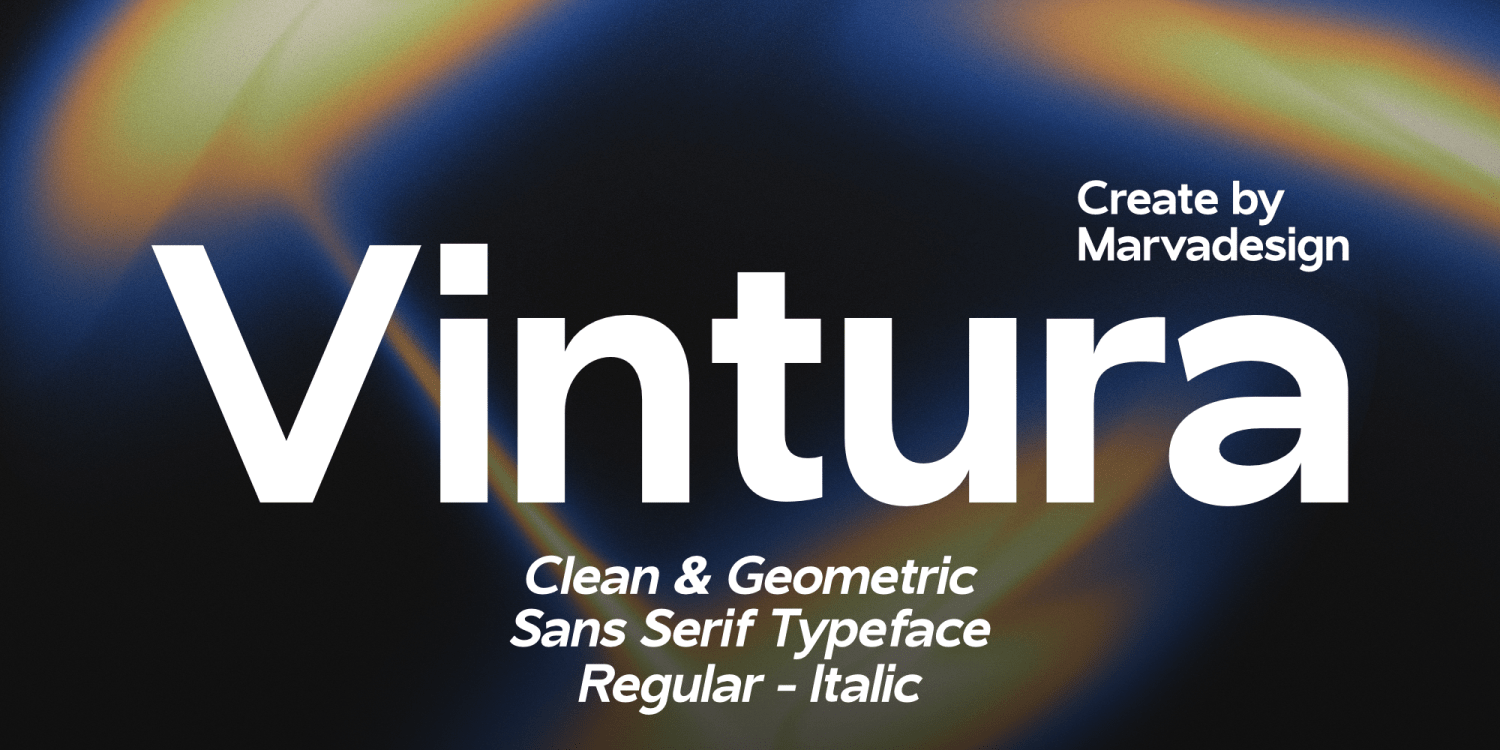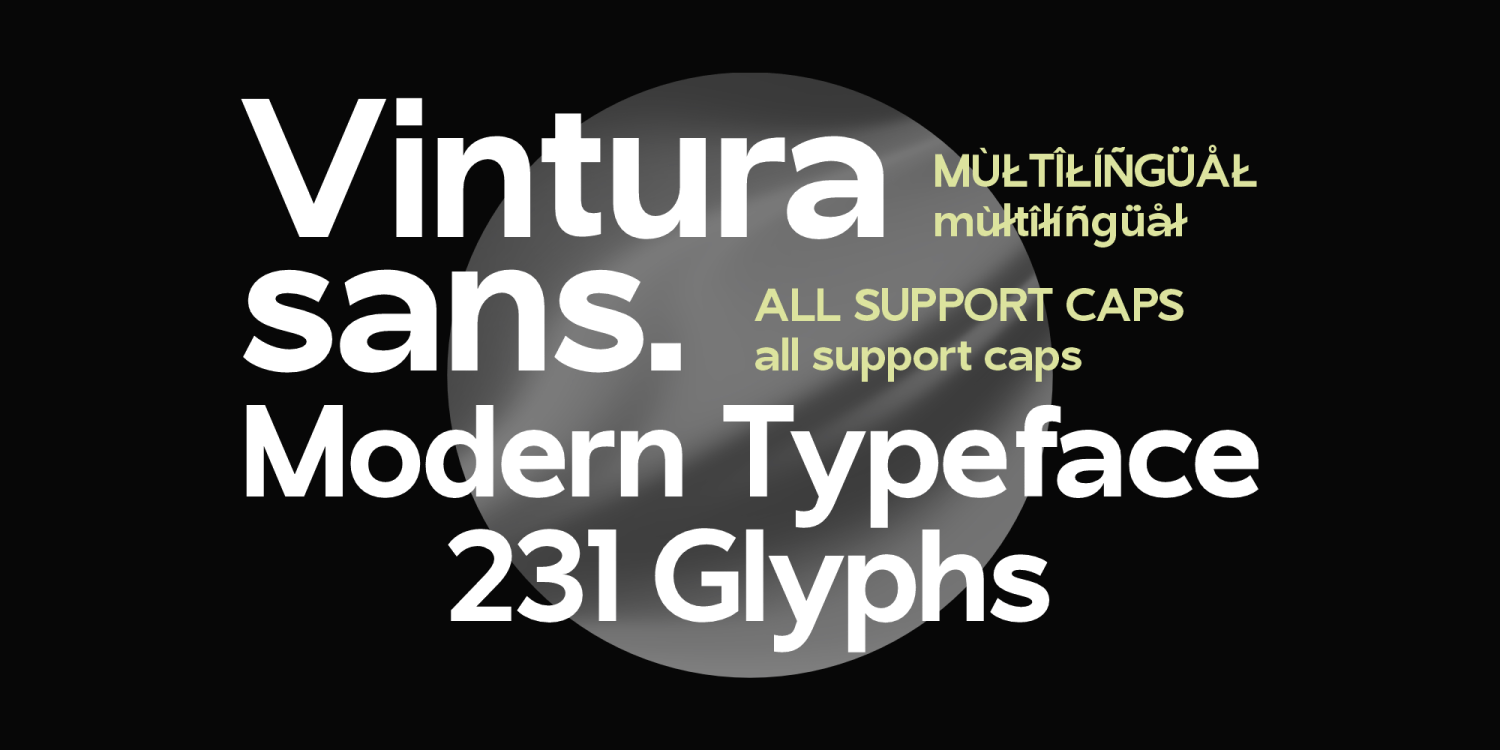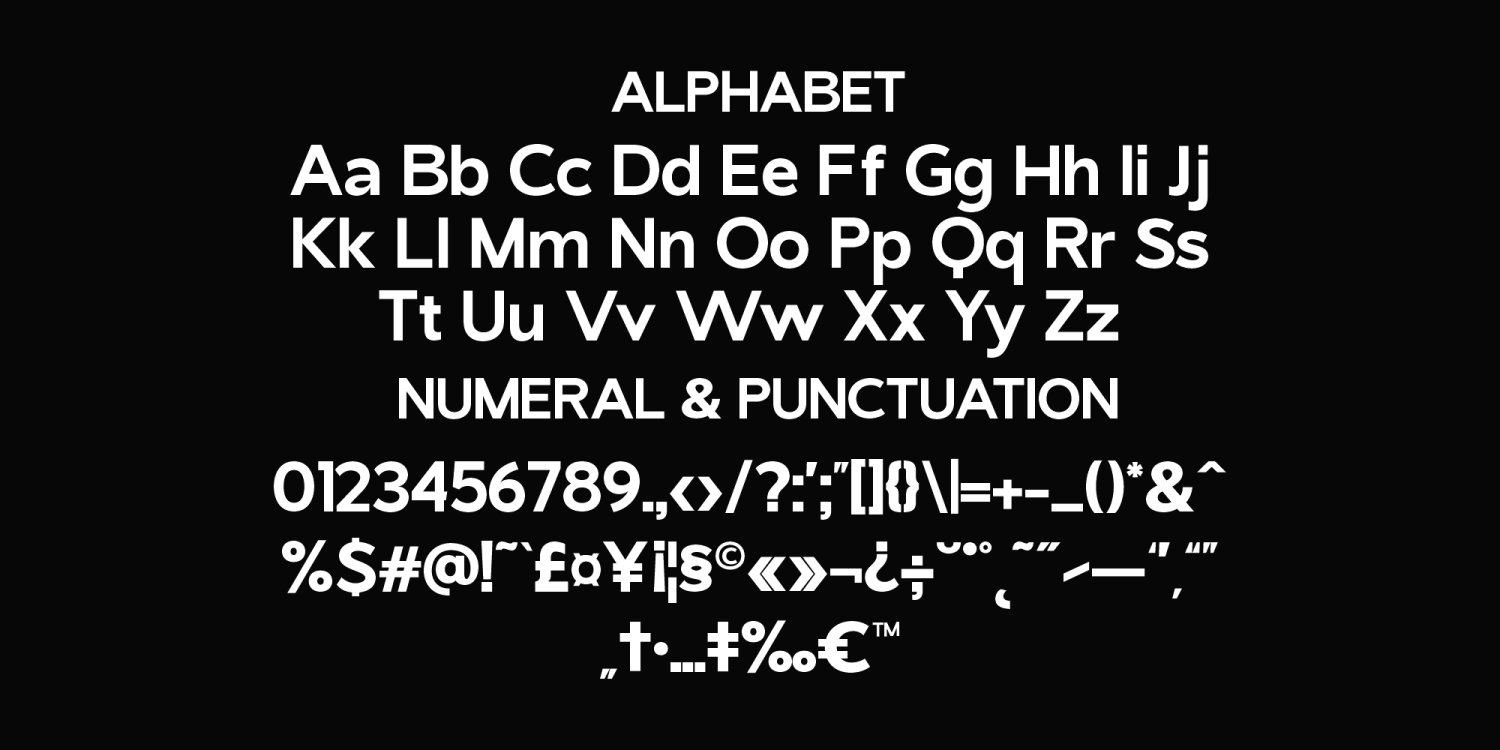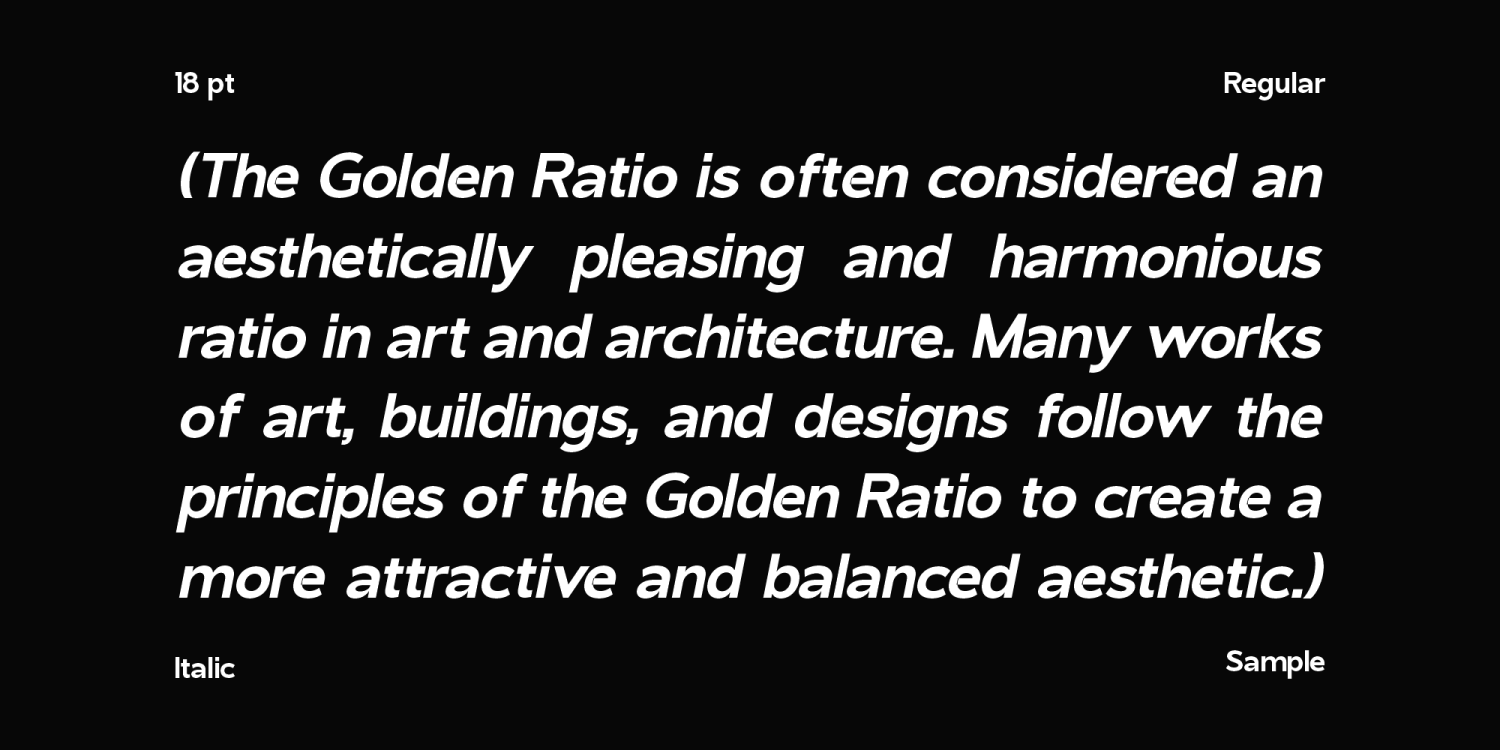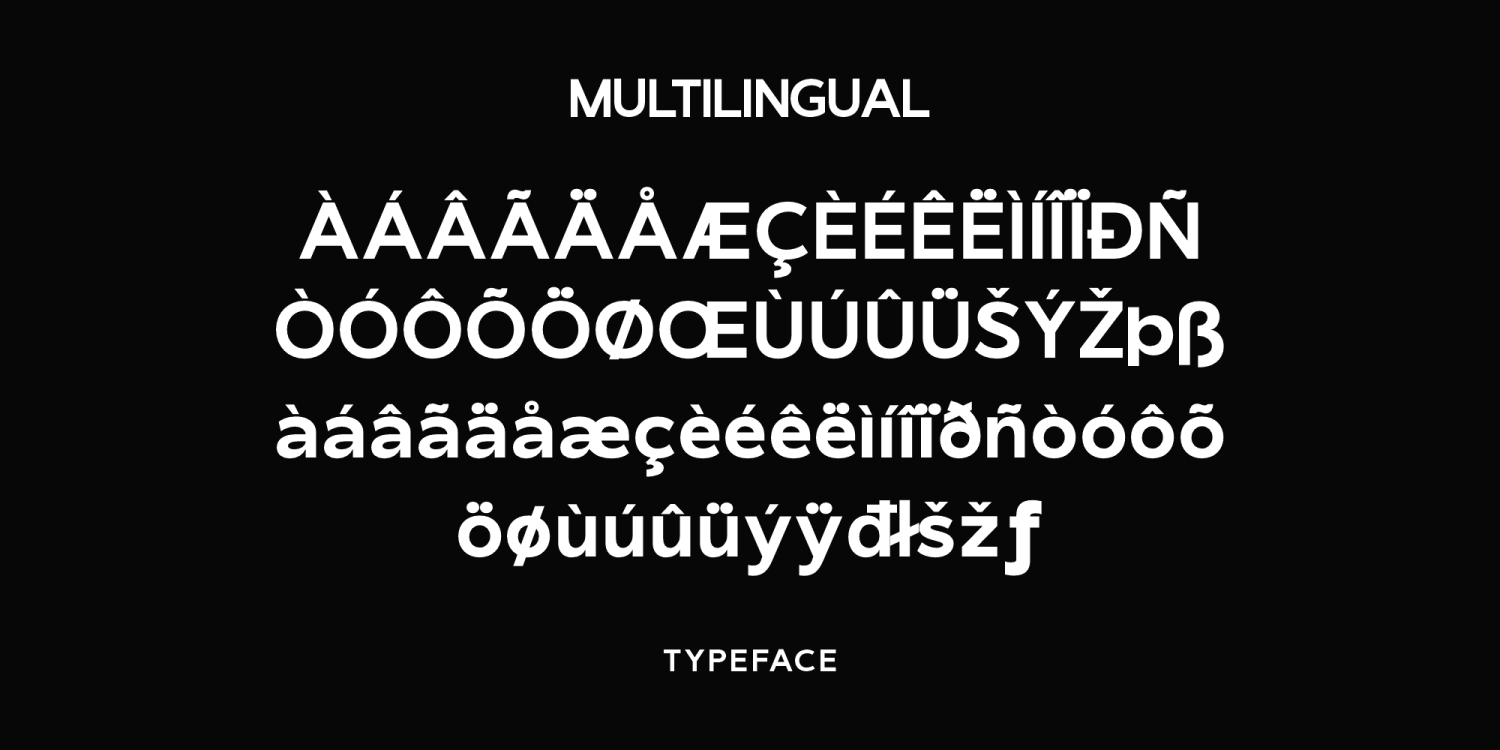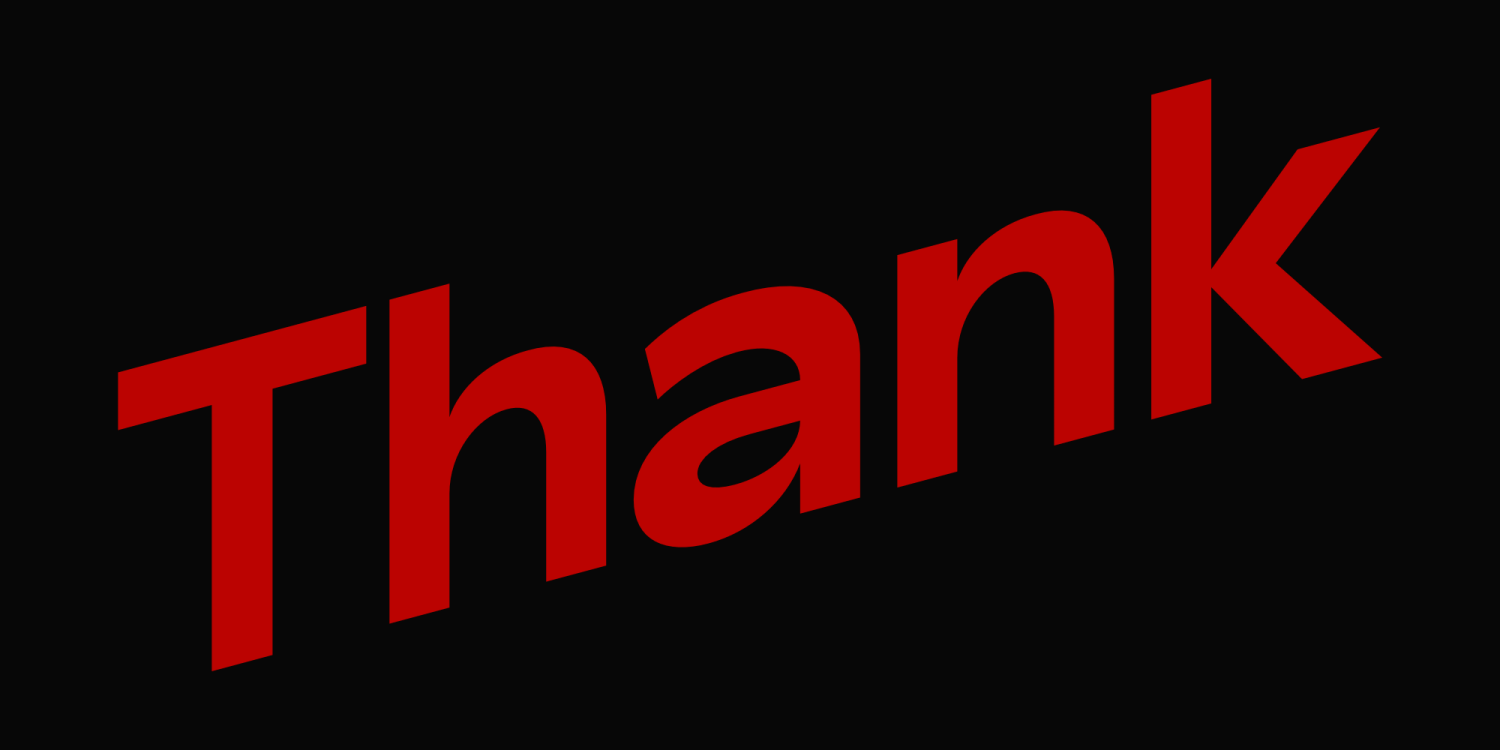
Vintura
Font Family by Marvadesign
Introducing Vintura is a modern and geometric sans-serif typeface that embodies a clean, minimalistic aesthetic. Designed for versatility, it offers both regular and italic styles, making it suitable for a wide range of design applications. With its well-balanced proportions and smooth curves, Vintura provides excellent readability while maintaining a contemporary, elegant appearance. It features a robust set of 231 glyphs, including multilingual support and uppercase variations, ensuring compatibility with various typographic needs. Ideal for branding, advertising, digital interfaces, and editorial design, Vintura’s bold yet refined character enhances any visual composition, making it a reliable choice for designers seeking a professional and sophisticated typeface.